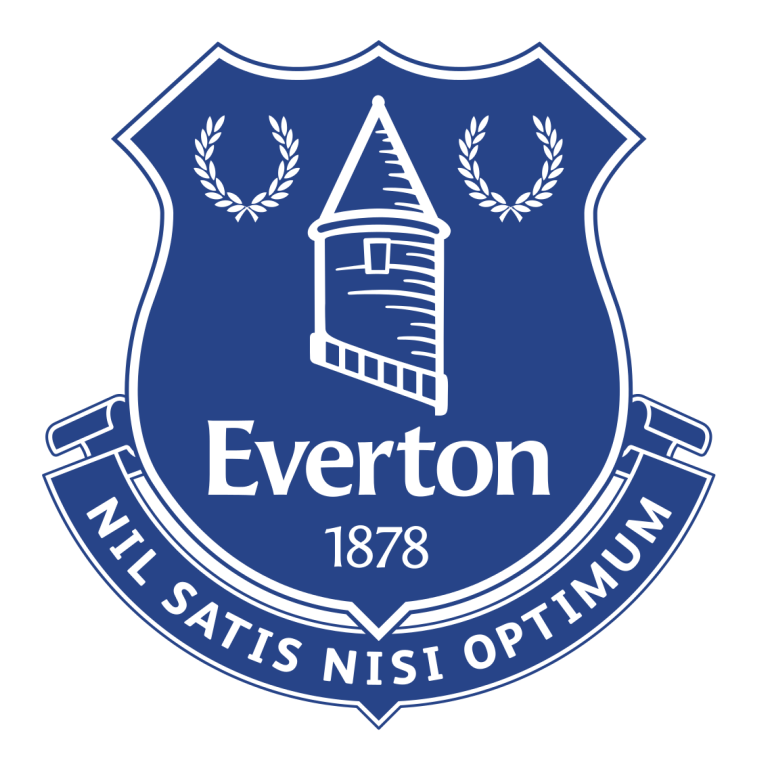
Everton Logo Font
Fonts in UseEverton Football Club, based in Liverpool, England, is a historic football team with a rich tradition and passionate fan base, known for their competitive performances in the English Premier League and their iconic home ground, Goodison Park.
The current logo of Everton, adopted on July 4, 2014, features a font similar to FF Angie DemiBold, a serif font family designed by Jean François Porchez. The previous logo used from 2000 to 2013 showcased a wedged serif font called Matrix II Bold by Zuzana Licko.